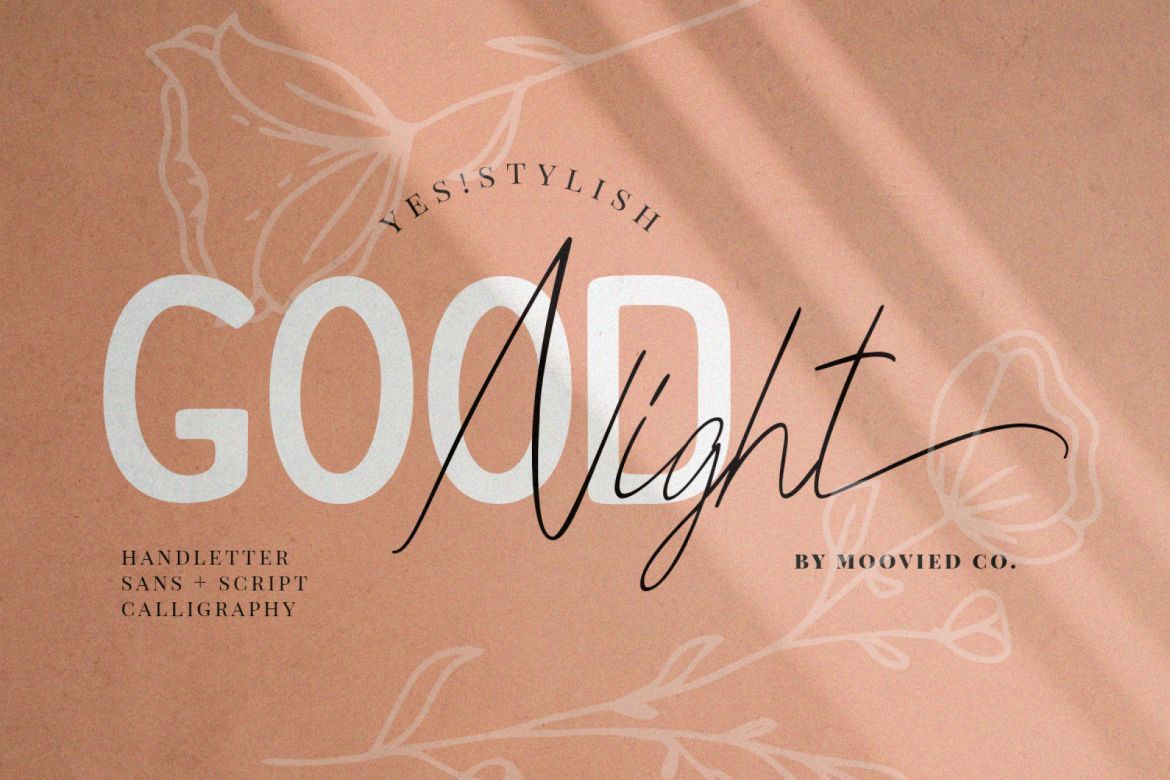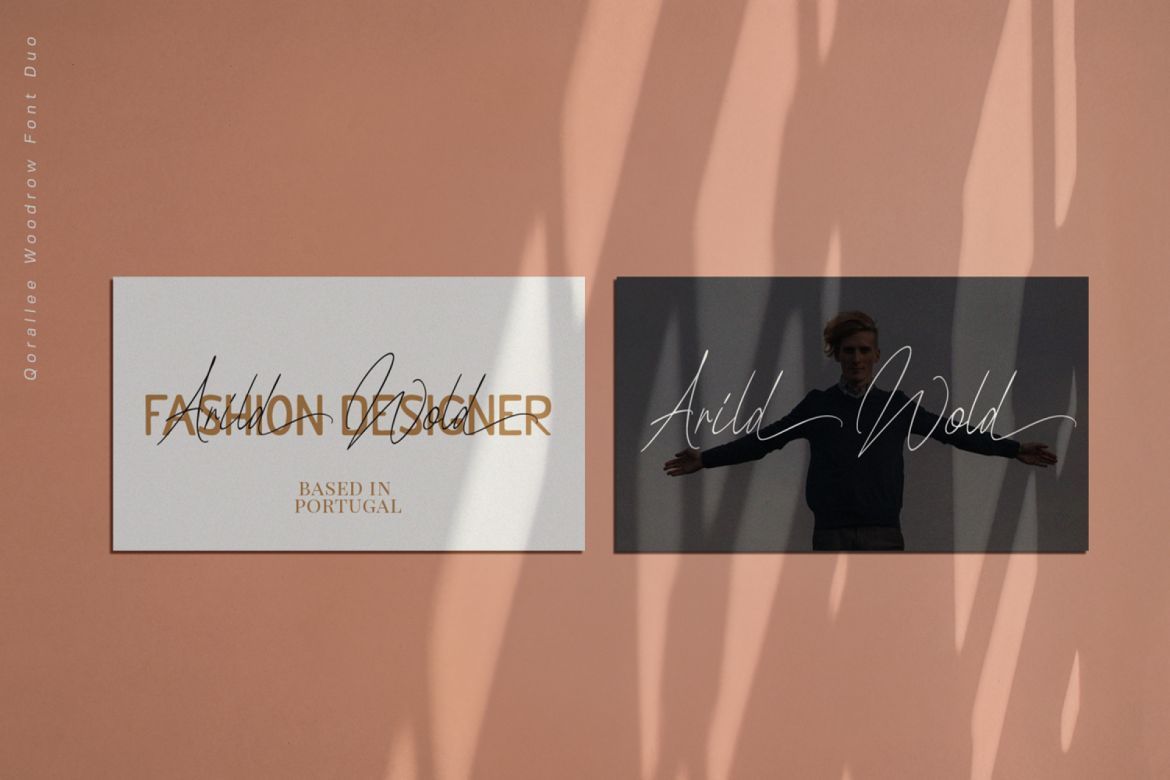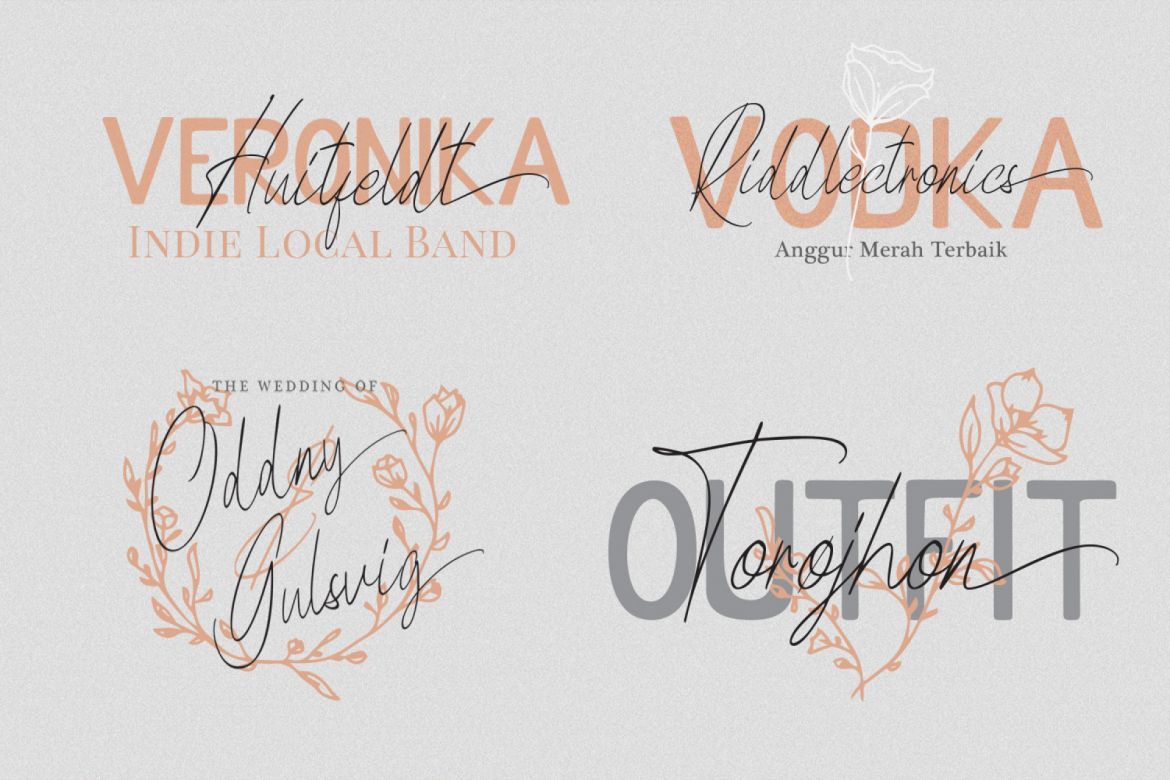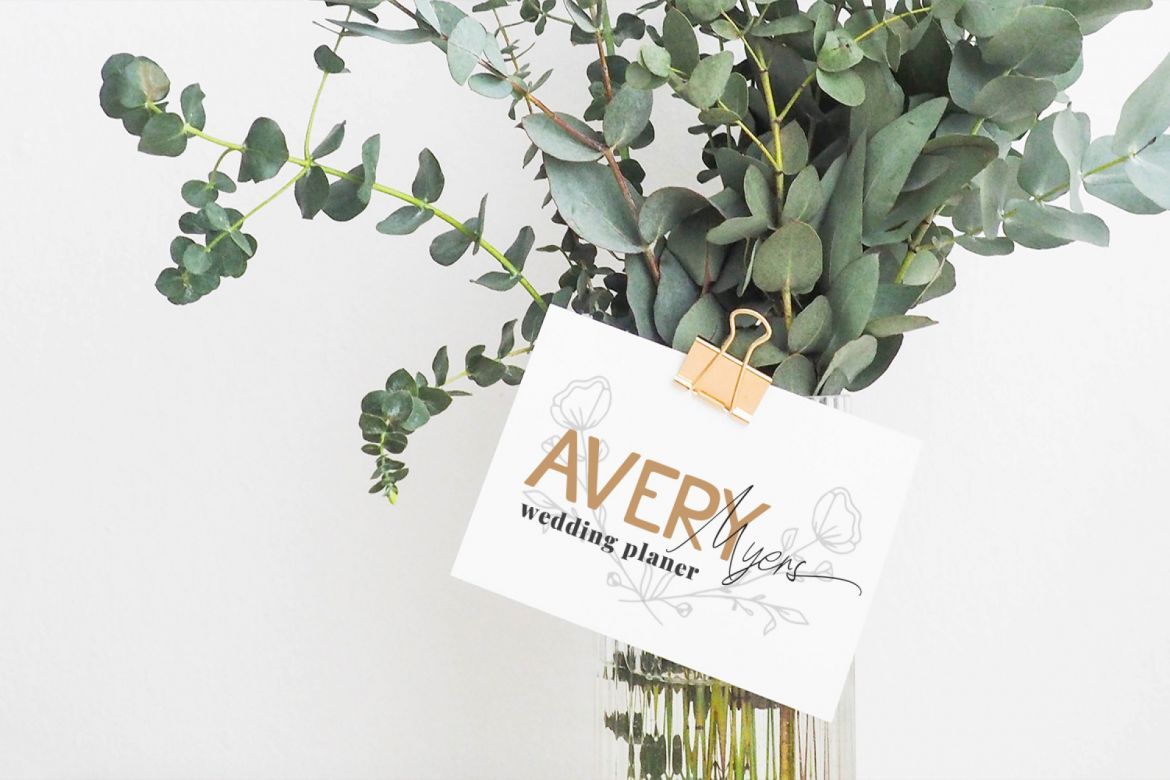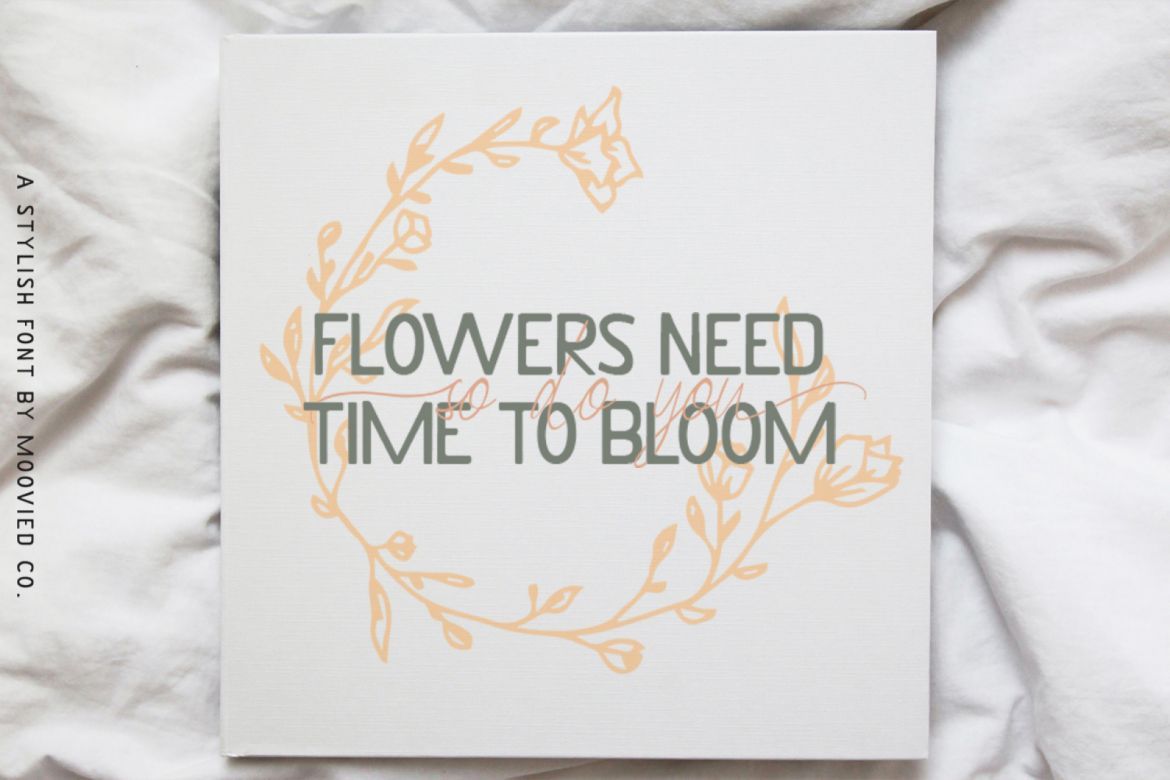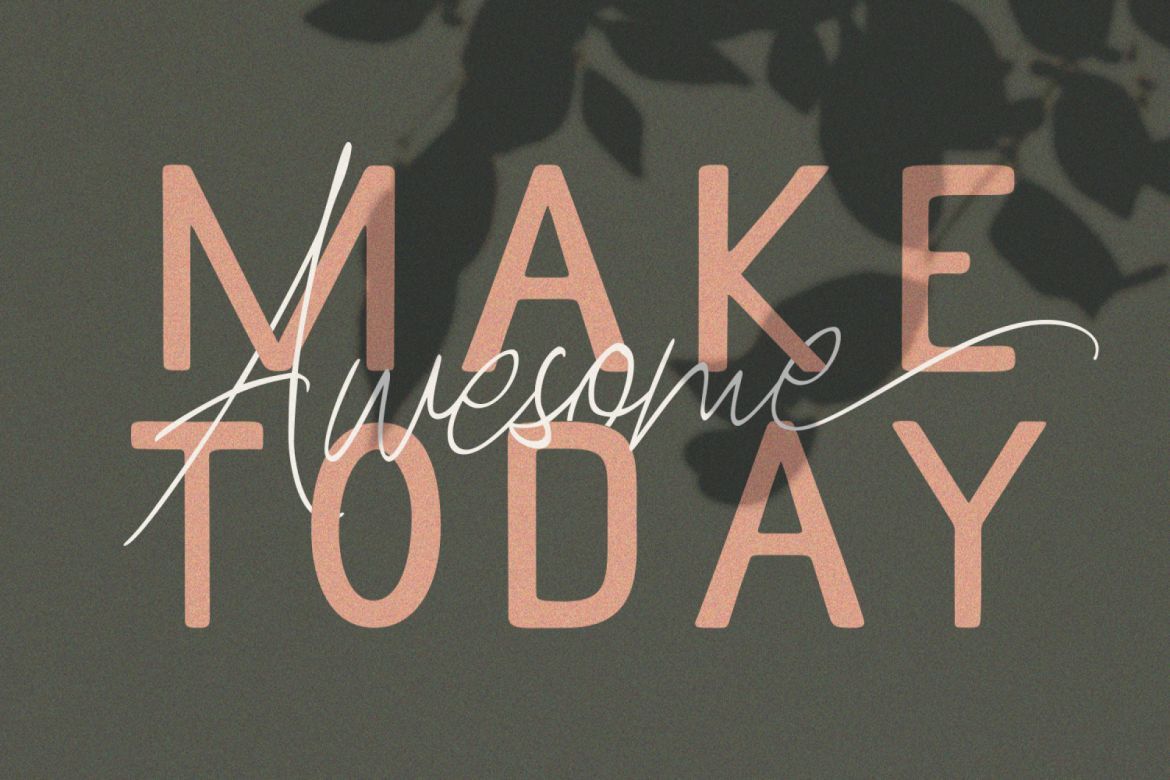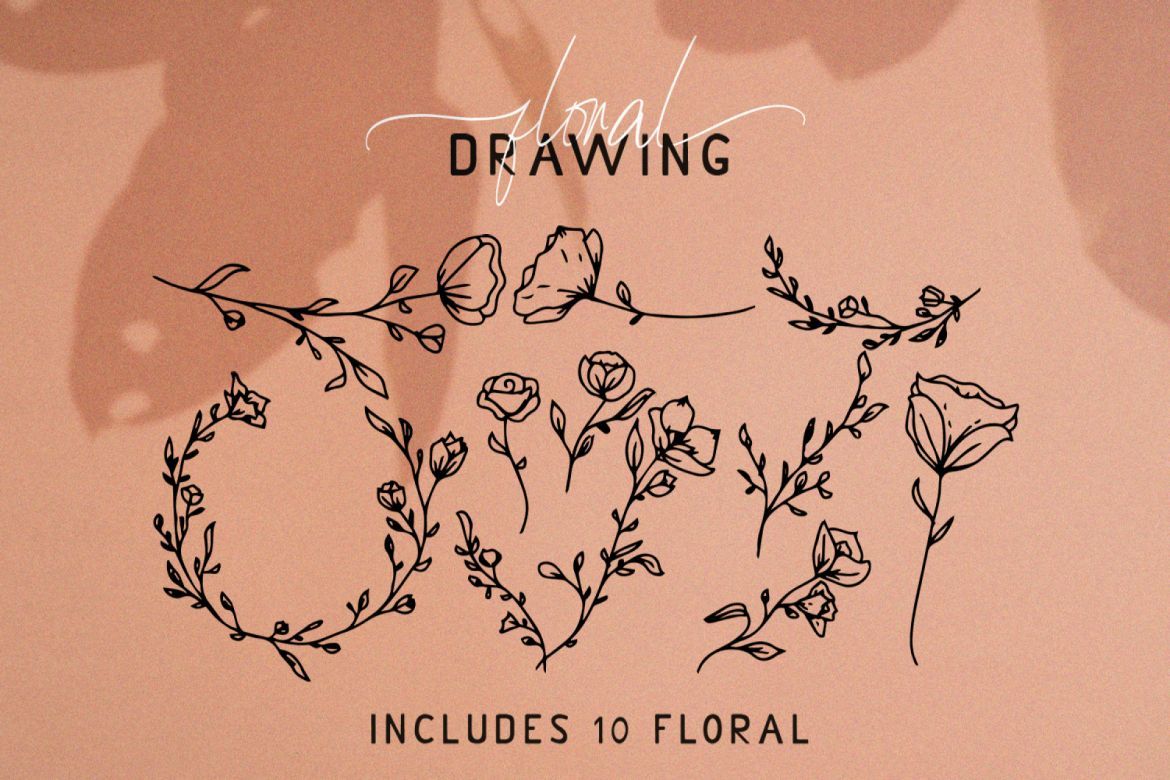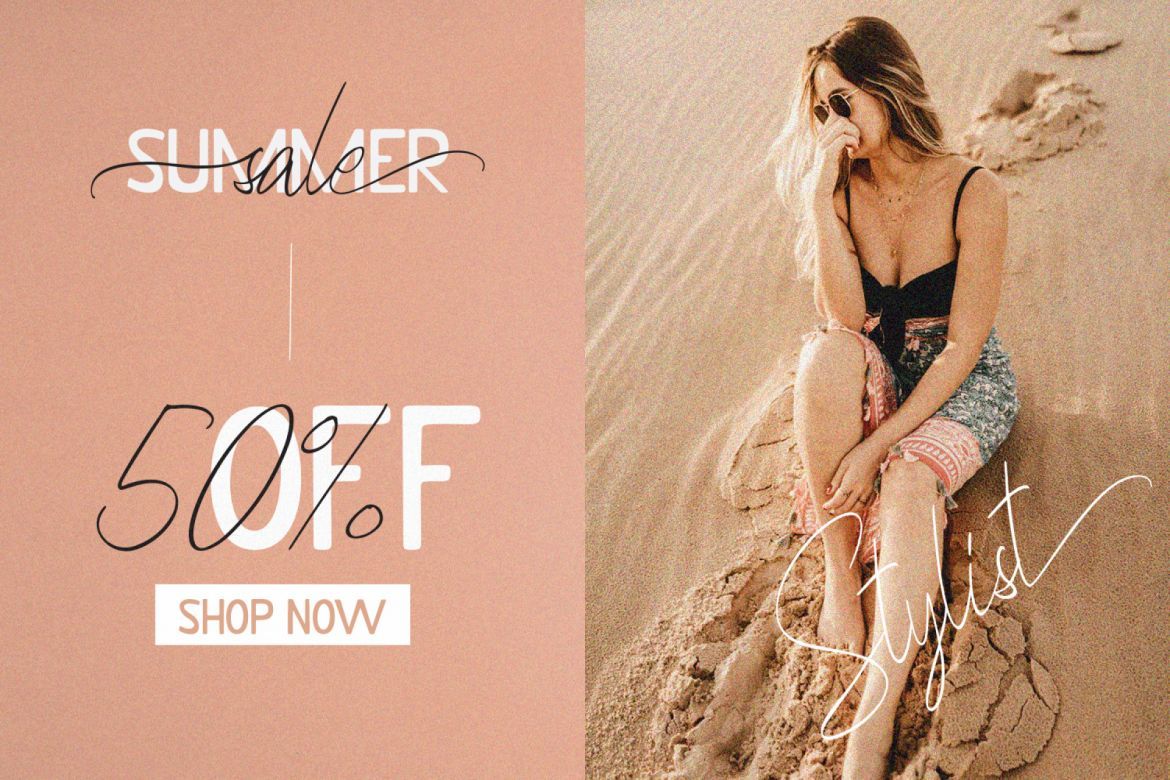
Qorallee Woodrow Font Duo + Bonus
Hello from the duo font, a combination of bright fonts with scripts and sans for the summer! it's perfect for logos, wedding invitations, and also 10 floral handmade vectors for you!
Qorallee Woodrow is built with opentype features, start and end swash, numbers, punctuation, alternatives, binding and also supports other languages :)